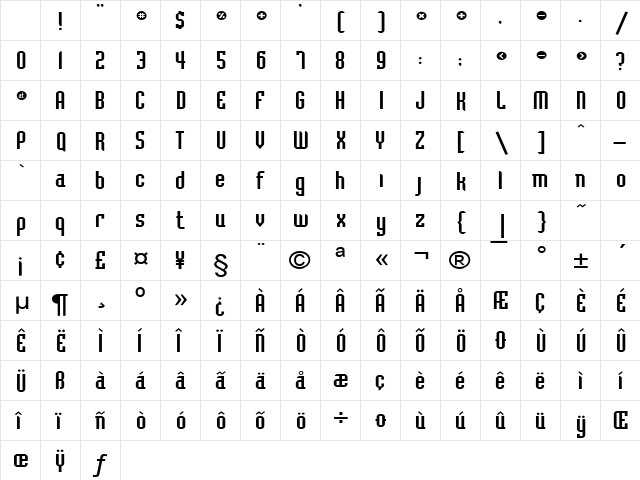
Flintstone Extended Normal
Design Context for Flintstone Extended
Flintstone Extended is a composed and adaptable typeface that performs quietly and consistently across a wide range of design contexts.
Pro Tip: Use Flintstone Extended in both headline and body roles to test its range before committing to a single application.